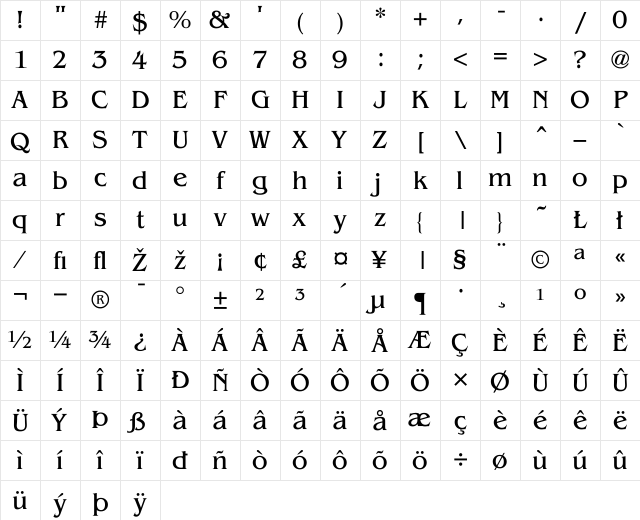
Bengali Normal
Design Context for Bengali
Bengali is a composed and adaptable typeface that performs quietly and consistently across a wide range of design contexts.